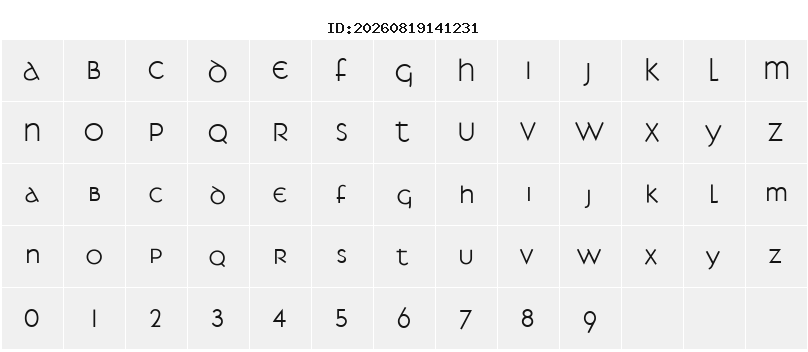
• Font Name: SimplexTR
• Full Font Name: SimplexTR
About SimplexTR.ttf
SimplexTR.ttf is a modern, elegant sans-serif font designed for ultimate readability and visual harmony. Perfect for branding, headlines, web design, and print materials.